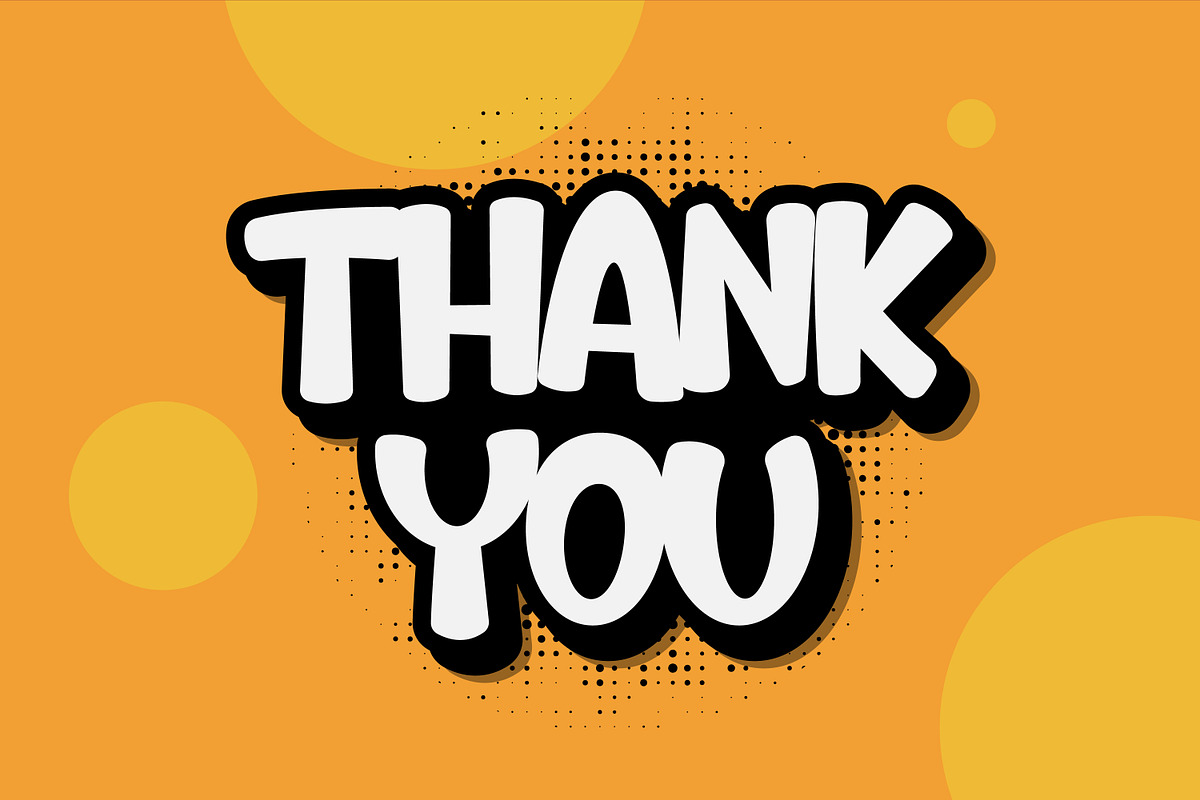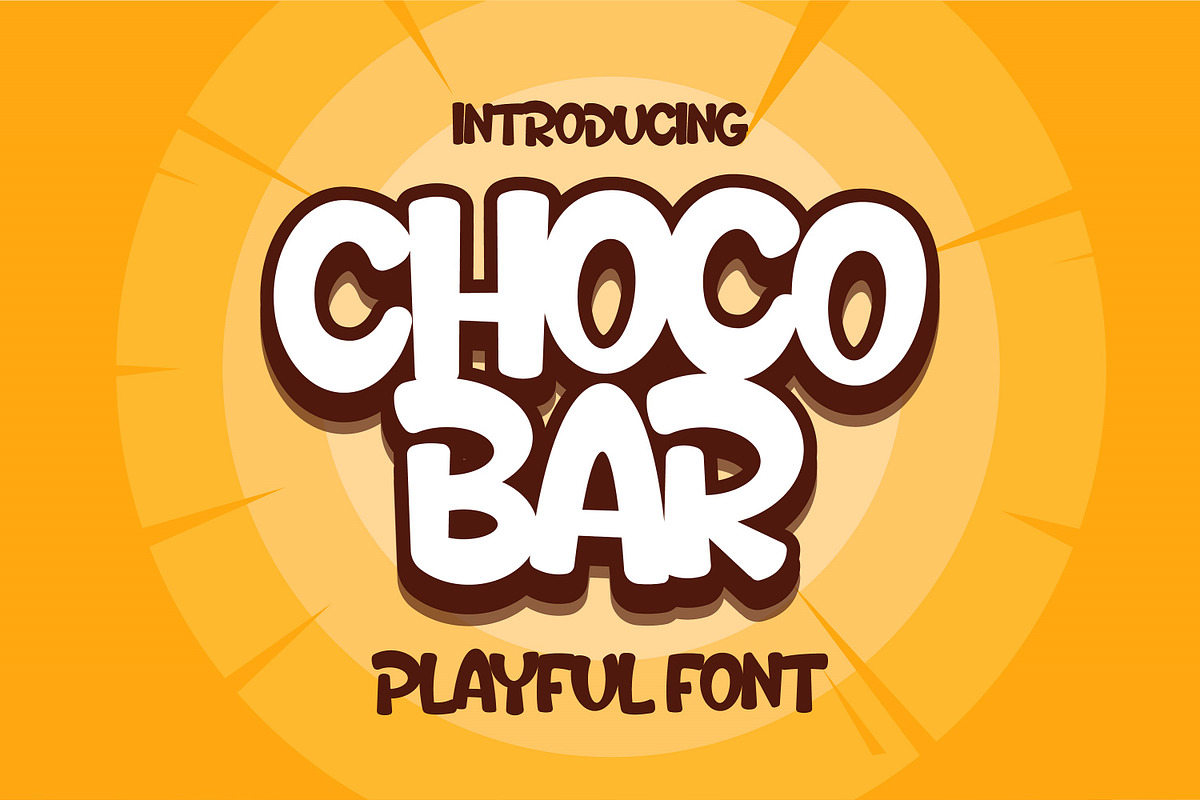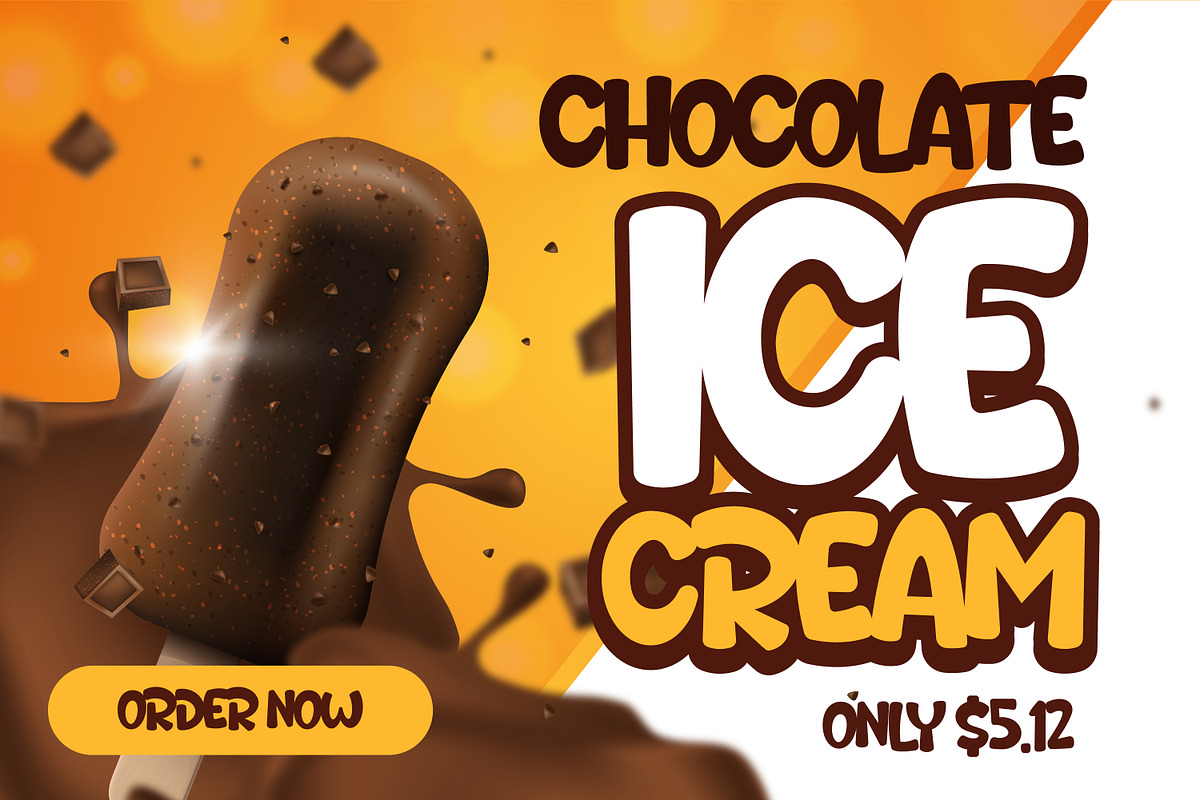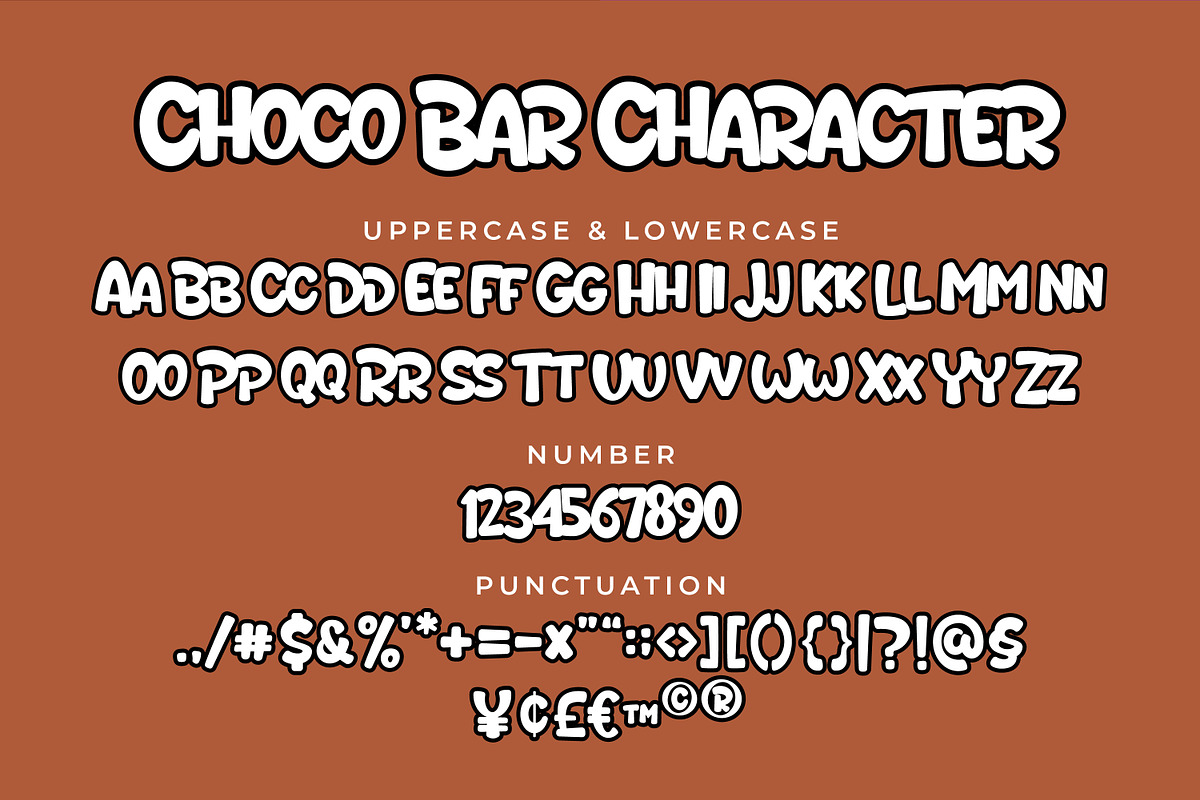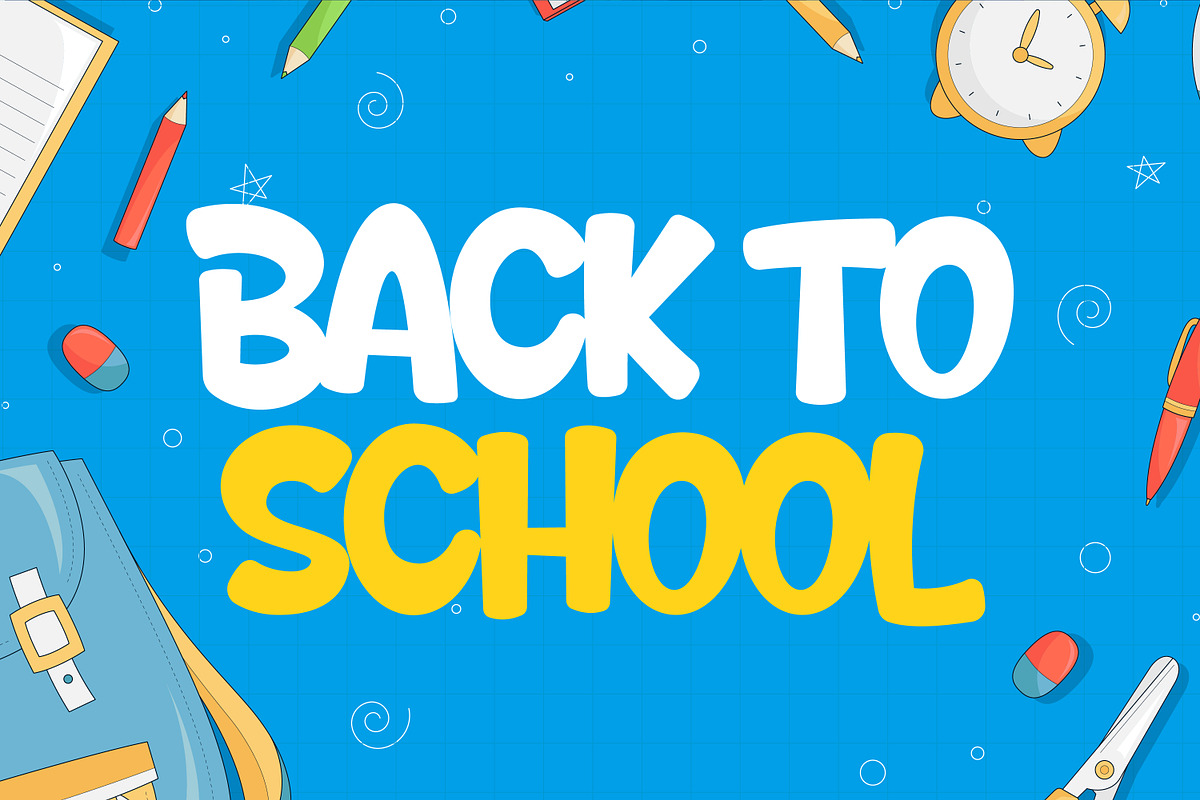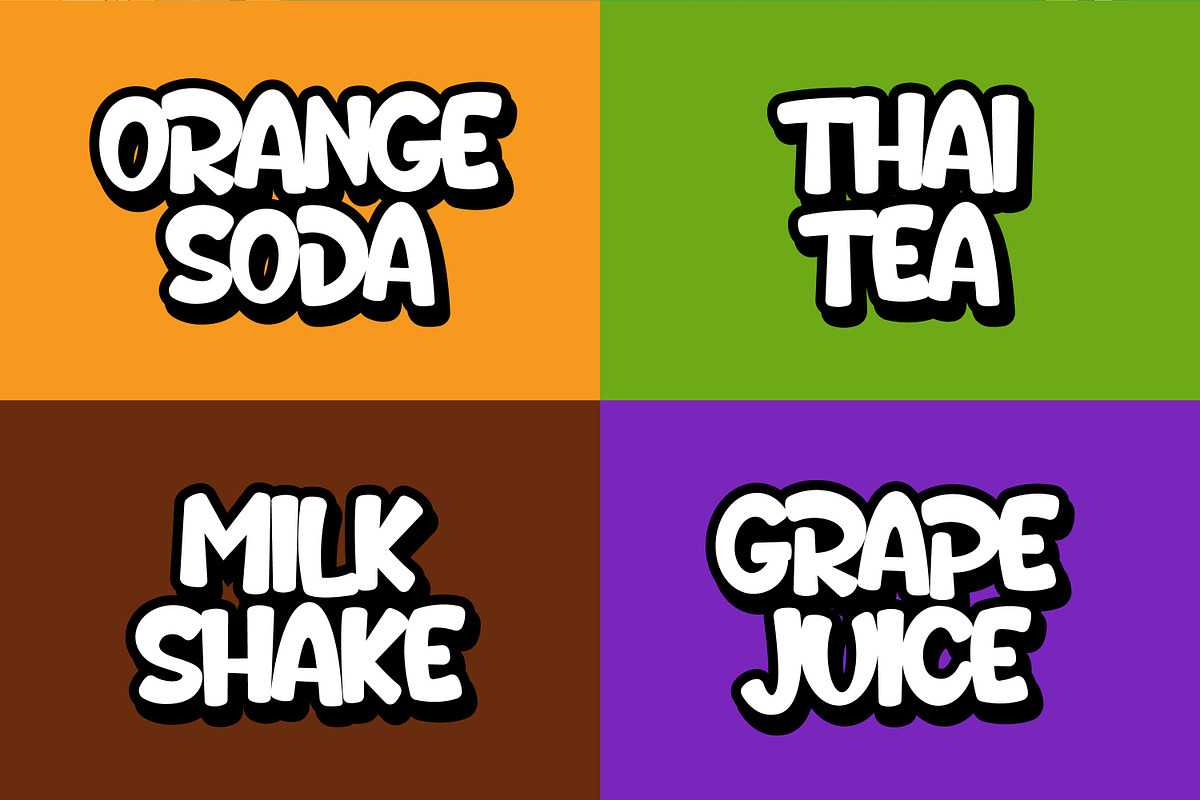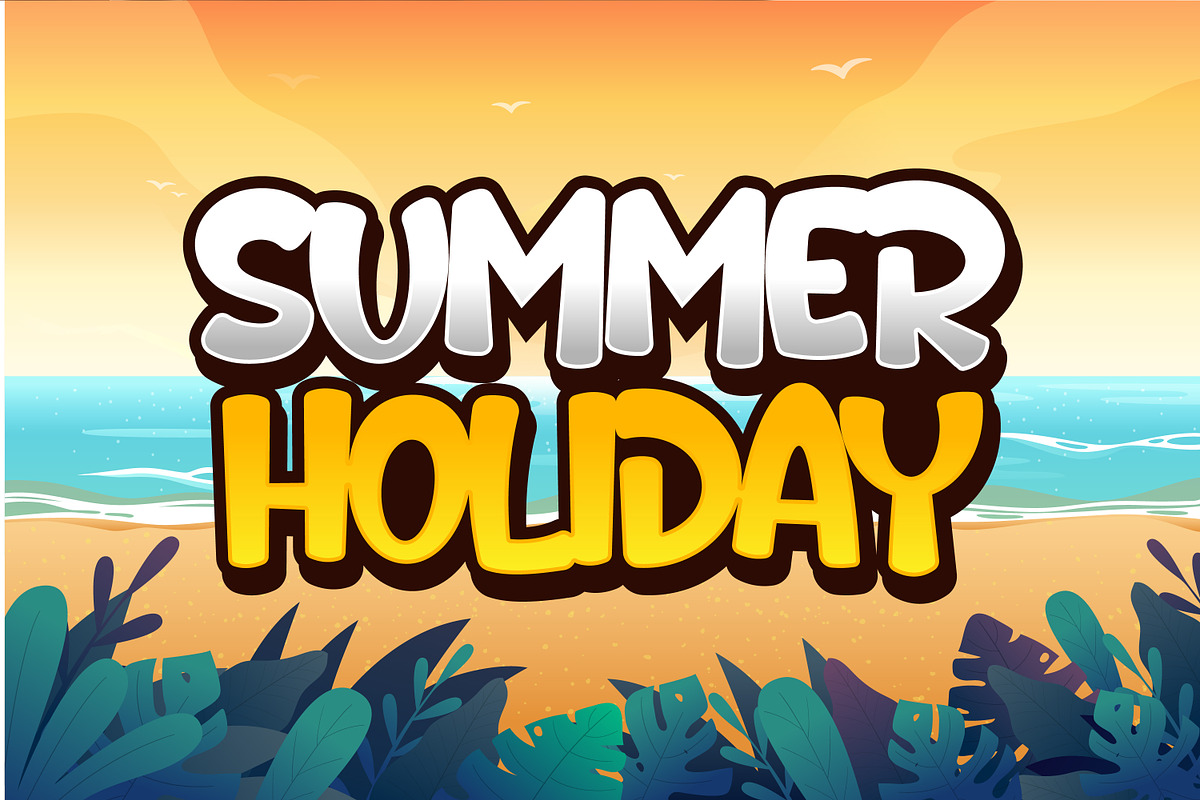
Choco Bar Playful Display
Introducing Choco Bar
The playful display font that’s as sweet and irresistible as its name! With bold, chunky letters and a delightful design, Choco Bar brings a dose of fun and energy to your projects. Perfect for candy packaging, bakery branding, posters, or any design that craves a touch of sweetness, this font instantly adds a sense of whimsy and joy.
Add a taste of creativity to your work with Choco Bar—where fun meets design!